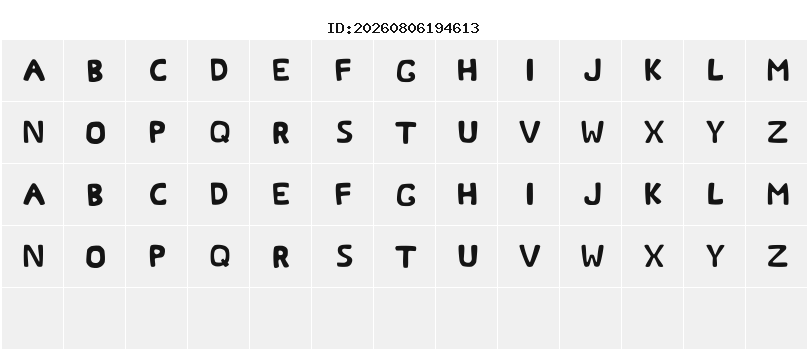
Ok Coral.ttf is a modern, elegant sans-serif font designed for ultimate readability and visual harmony. Perfect for branding, headlines, web design, and print materials.